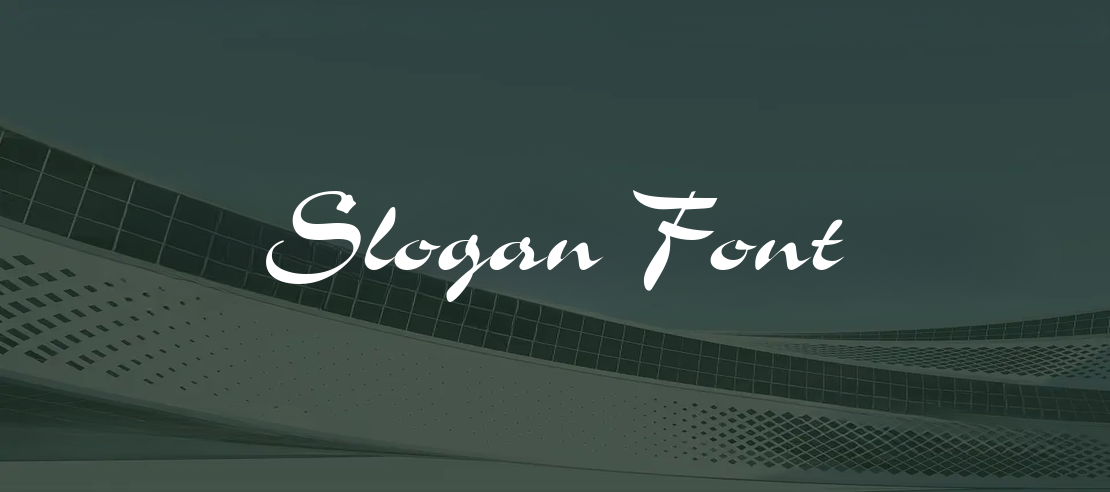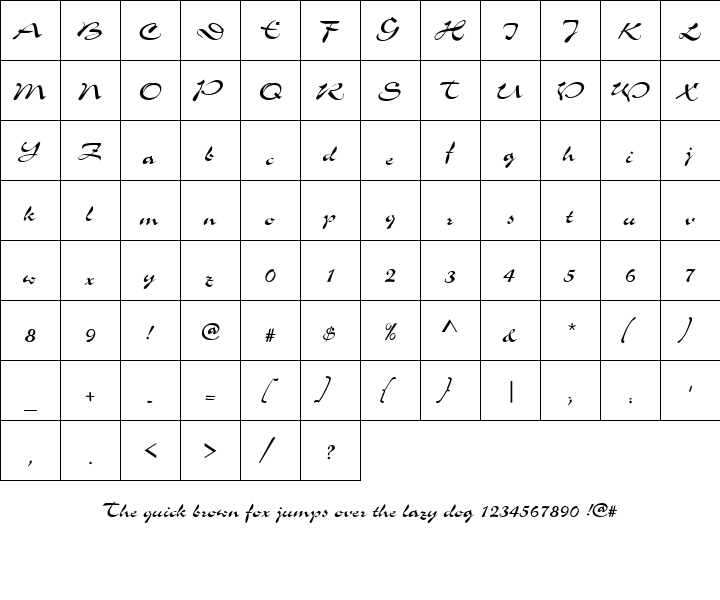
In this post, I shall introduce to you an interesting and lovely typeface. Slogan Font is a romantic and stunning typeface. A slogan typeface is a handwritten typeface created by an Italian typeface designer.
Slogan typeface is available in two weights, Regular and Bold. The typeface was designed with the intention of being used for short texts, such as headlines, taglines, and slogans. You can also use this typeface in posters, logos, banners, invitation cards, and fashion designs.
Slogan typeface is a great choice for headlines and short texts that need to be impactful and attention-grabbing. The typeface is easy to read and has a friendly, approachable vibe. When used in larger sizes, the Slogan typeface can be very striking and memorable.
Slogan typeface has a complete set of characters including uppercase and lowercase letters, numbers, and punctuation marks. It also supports international characters. This typeface is similar to the bombshell font.
Creator of Slogan Font
This lovely and awesome typeface is created by Italian typeface designer Aldo Novarese in 1957.
This font style is designed with an exclusive and regular style. This single attractive style is a mixture of many different characteristics, containing capital and small letters, number, special characters, glyphs, punctuations, symbols, and many language support.
View of Slogan Font
| Name | Slogan Font |
| Designer | Aldo Novarese |
Is Slogan Font a new font?
No, the Slogan typeface is not a new typeface. It is an old typeface. This typeface was released in 1957.
Is Slogan typeface Fancy font?
No, the Slogan typeface is not a fancy typeface. It is a handwritten typeface.
Is the Slogan typeface good for headings?
Yes, the Slogan typeface is good for headings. If you want to use a stylish typeface in the headings Slogan typeface is the best typeface.
Who owns Slogan typeface?
Slogan typeface is owned by Italian typeface designer Aldo Novarese in 1957.